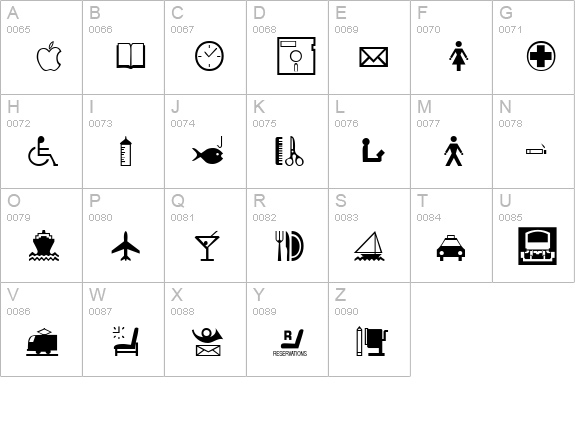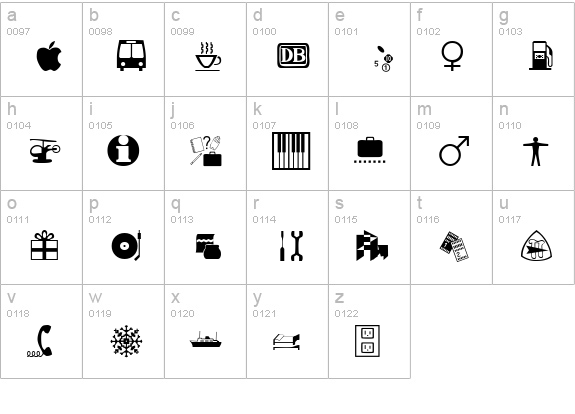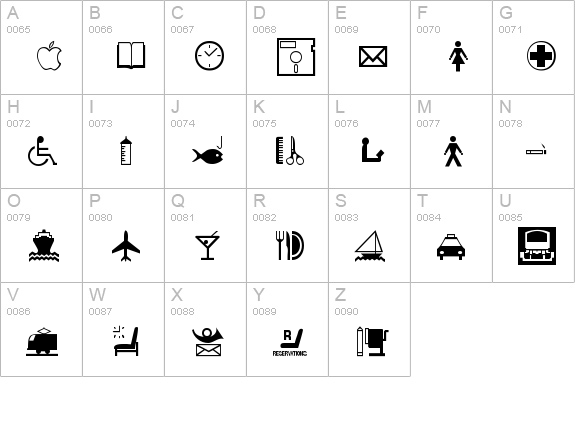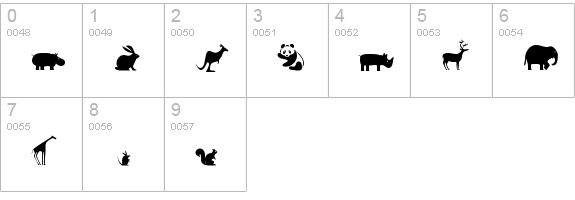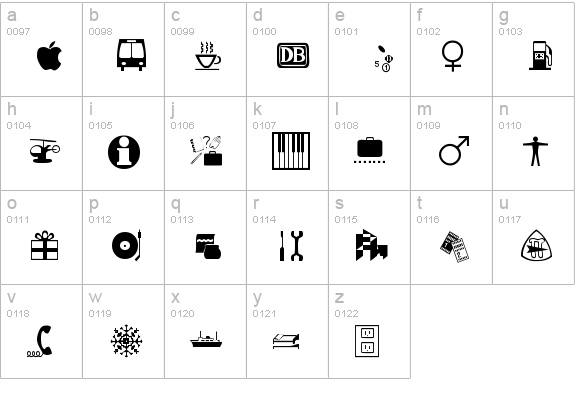
DoodleDingbatsSevenSSK Font Details
DoodleDingbatsSevenSSK is a whimsical and fun font that is sure to add a touch of playfulness to any project. Featuring a unique combination of doodles and dingbats, this font is perfect for adding decorative elements to your designs. Whether you're creating greeting cards, posters, or social media graphics, DoodleDingbatsSevenSSK will bring a touch of charm to your work. Best of all, DoodleDingbatsSevenSSK is completely free to download at FontsMarket.com. This means you can add this delightful font to your collection without having to spend a dime. So go ahead and unleash your creativity with DoodleDingbatsSevenSSK - the perfect font for adding a dash of fun to your projects!